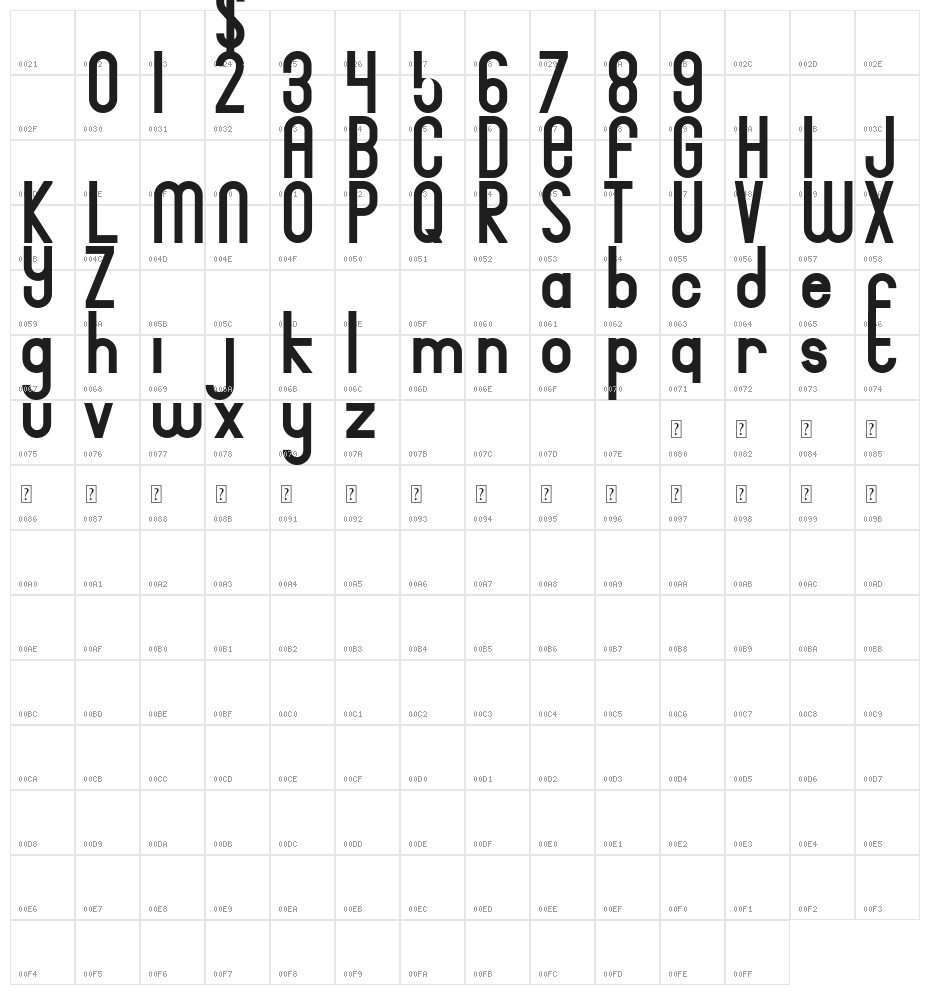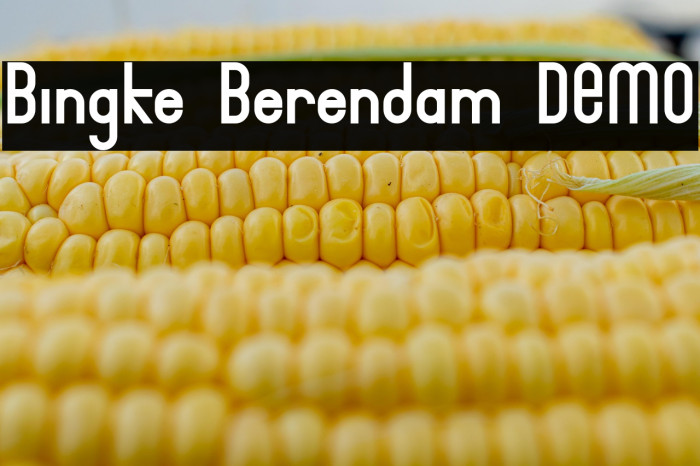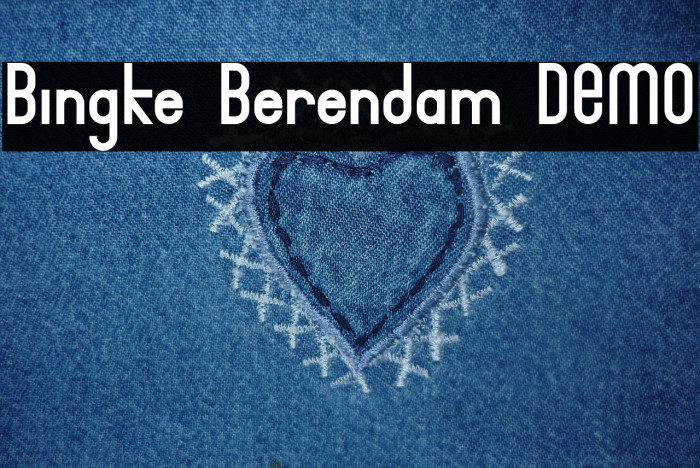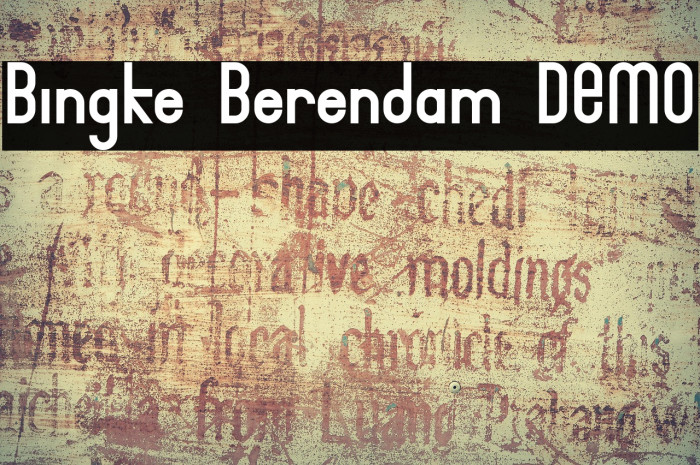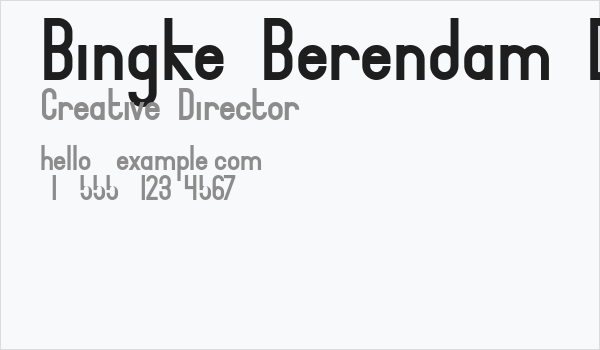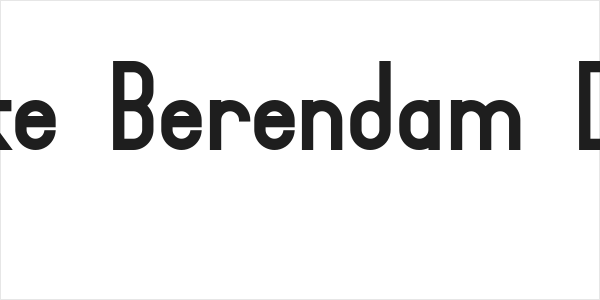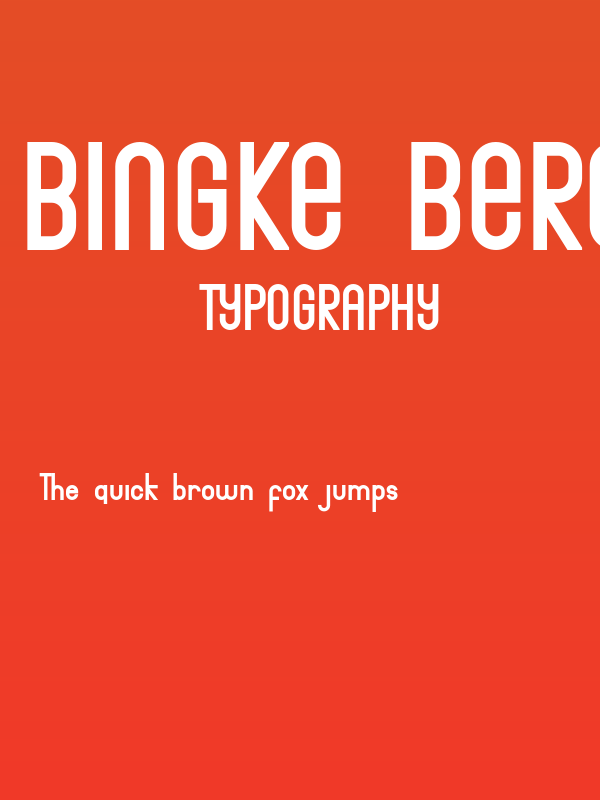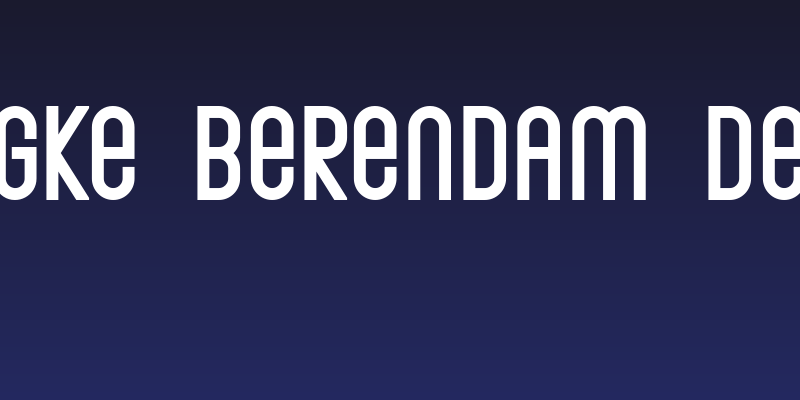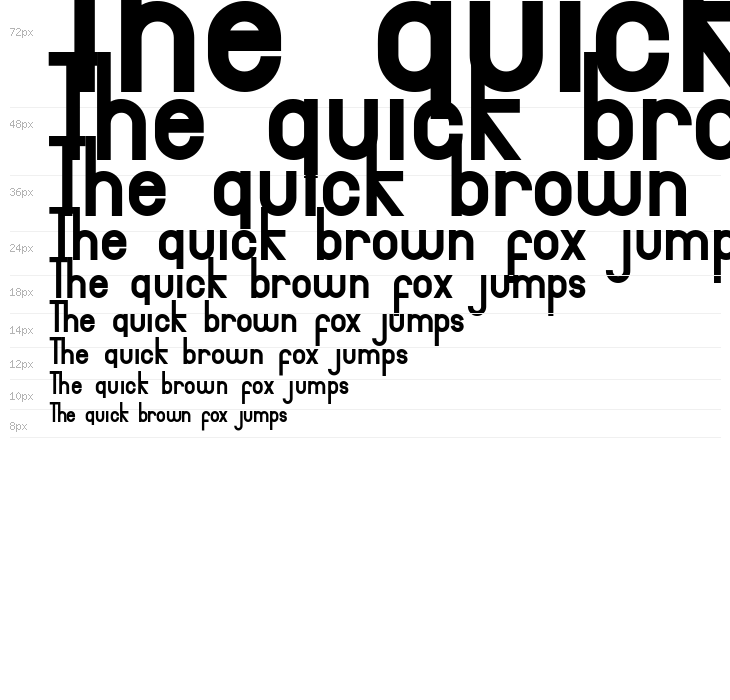
Bingke Berendam DEMO Font
Bingke Berendam DEMO Description
This font features a bold, geometric sans-serif style with clean lines and a modern aesthetic. The uppercase letters are tall and narrow, giving a condensed appearance, while the lowercase letters maintain a consistent height that complements the uppercase. The numerals are uniform in width, ensuring readability and balance. The special characters are designed to match the overall style, with a focus on simplicity and functionality. This font is ideal for creating a strong visual impact, making it suitable for headlines, posters, and branding materials.